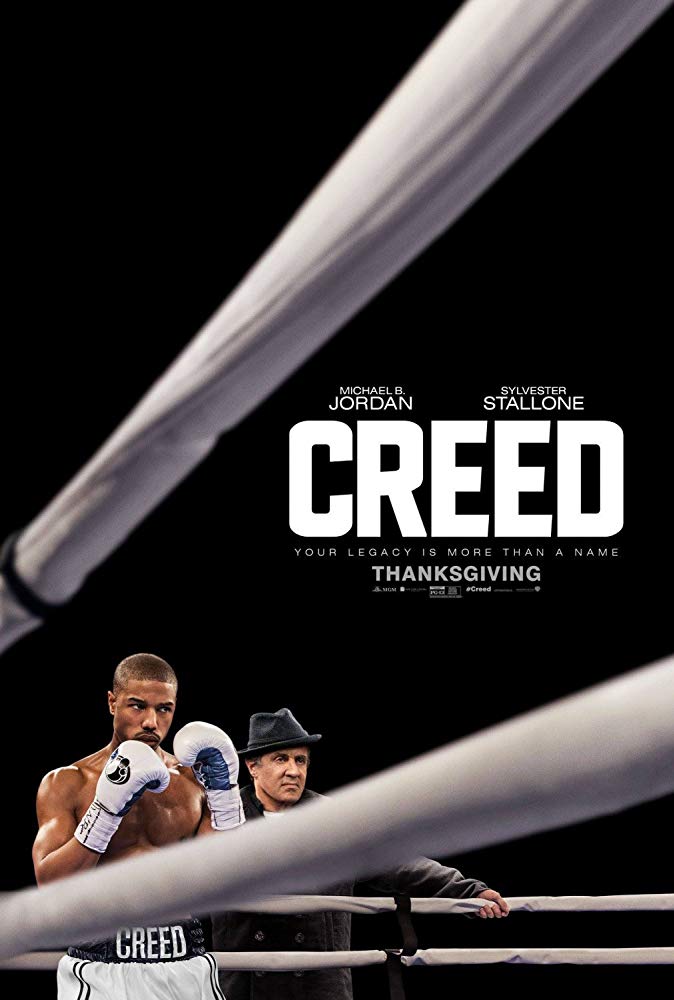
Creed [Movie] Font
The design of the film title on the poster closely resembles the TX Manifesto font. Some of its sharp edges have been altered to appear rounded. More details about the font can be found here